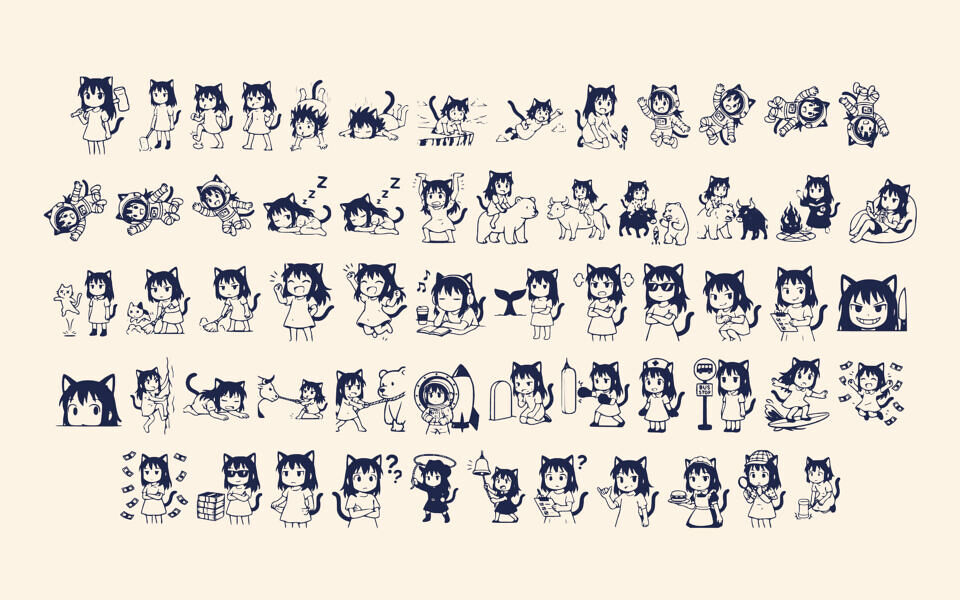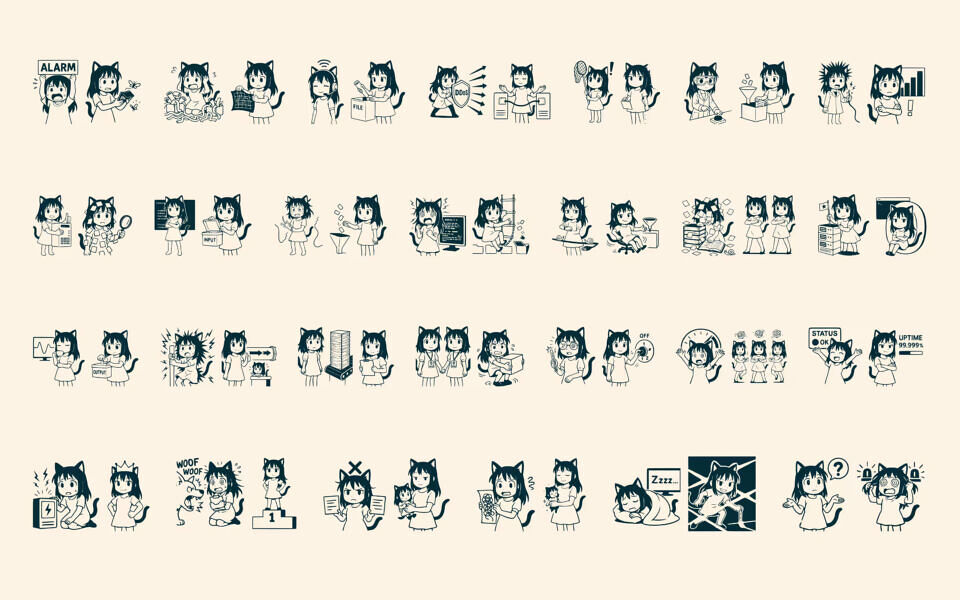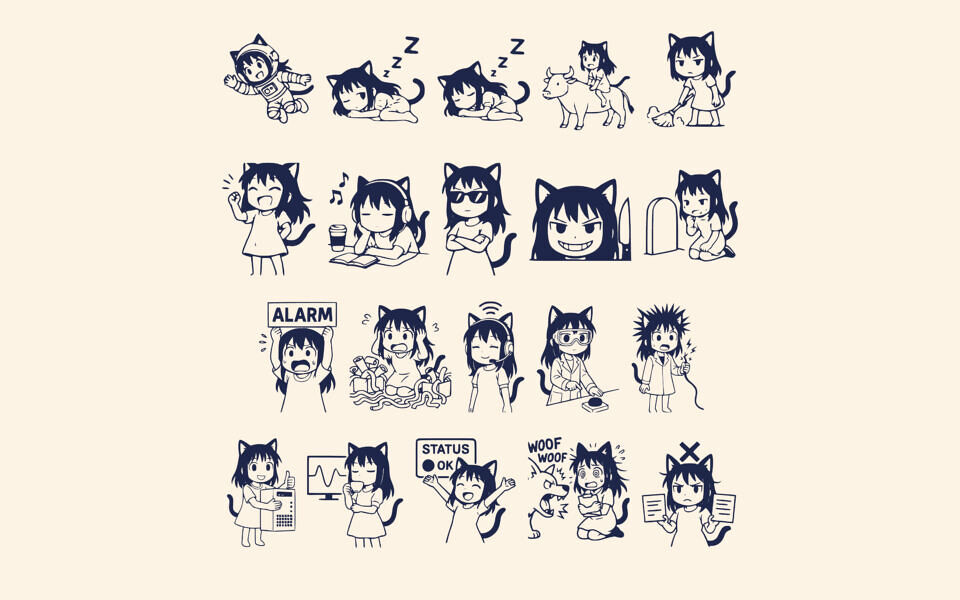
Catgirl System and Catgirl Trading are two unique icon-style fonts by Julius Janco that blend anime-inspired visuals with tech and finance themes. Designed for coders, traders, and dashboards, they feature expressive cartoon-style icons and playful system aesthetics.
Each font offers 66 monospaced characters in a single regular style (TTF/OTF) and is free for commercial use. While Catgirl System leans into coding and UI, Catgirl Font Trading brings a fun, emotional twist to financial contexts—perfect for adding personality to tech projects and digital interfaces.